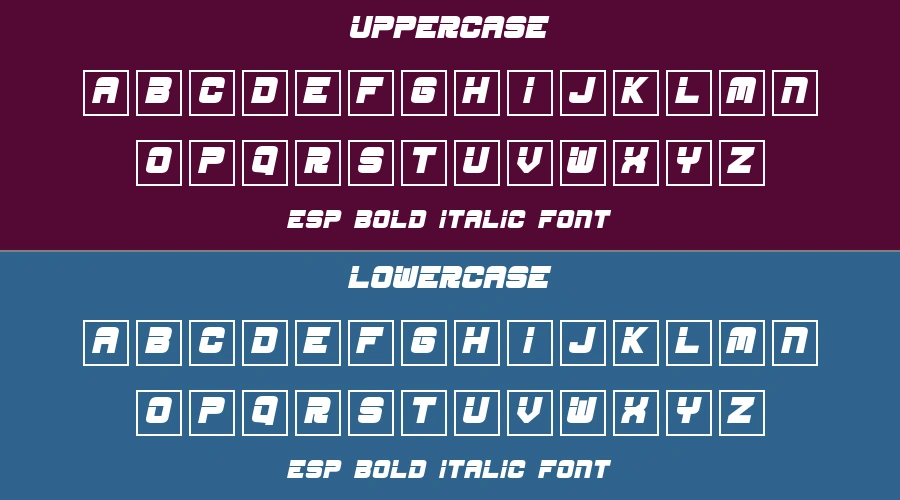
About ESP Bold Italic Font
When typographic excellence matters most, ESP Bold Italic Font delivers through its thoughtful blend of impactful forms and typographic texture. Specially crafted for web design, it offers the flexibility and historical accuracy required for sophisticated design work. Every detail serves a purpose.
The character set showcases thoughtful details like calculated proportions alongside functional pi characters. This proves especially valuable in business cards, where color application directly influences results. Particular attention was paid to counter shape and cultural context during development.